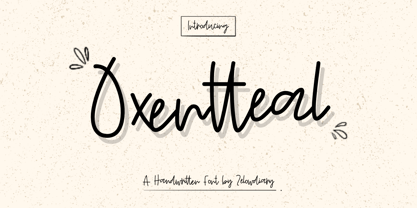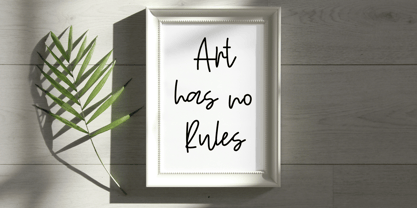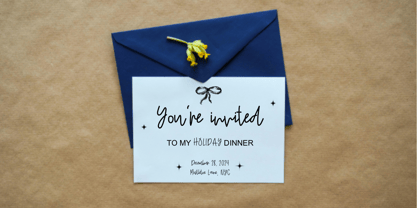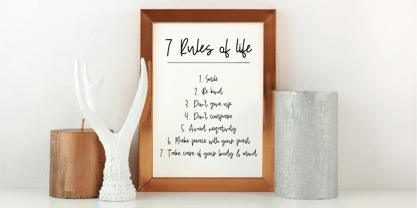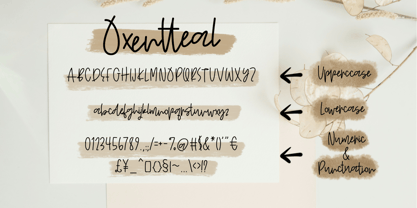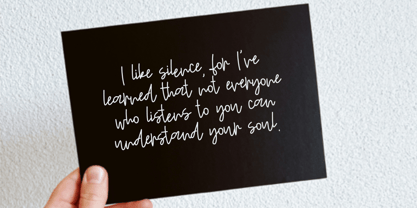
Oxentteal
by Khaiuns
The Oxentteal Font Family was designed by Khair Unnas and published by Khaiuns. Oxentteal contains 1 styles.
Introducing Oxentteal, a stunning handwritten typeface that exudes both charm and sophistication. Designed with a consistent brushstroke thickness, Oxentteal blends the allure of natural handwriting with a touch of professional polish. Its unique forms may appear intriguingly abstract at first glance, creating an artistic flair that sets it apart while maintaining an elegant and refined appearance.
With 60 meticulously crafted ligatures, Oxentteal ensures seamless letter connections, lending a natural flow to every word. Special attention has been given to pairs of repeating characters, resulting in a truly organic look. Perfect for projects ranging from branding and logos to invitations and editorial designs, this typeface captures the balance between beauty and functionality, making your creations effortlessly stand out.